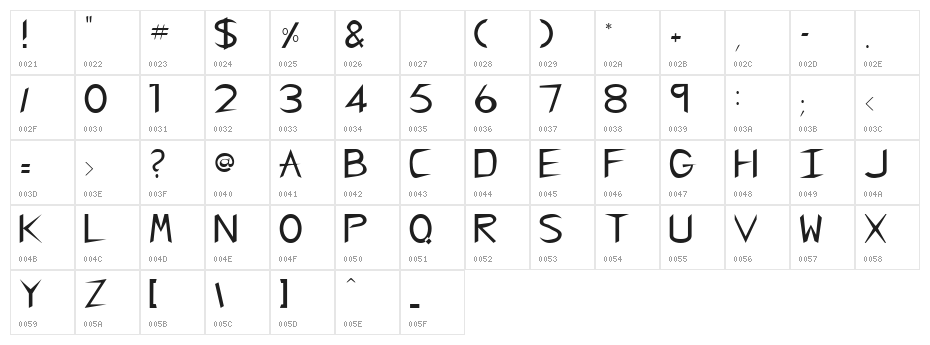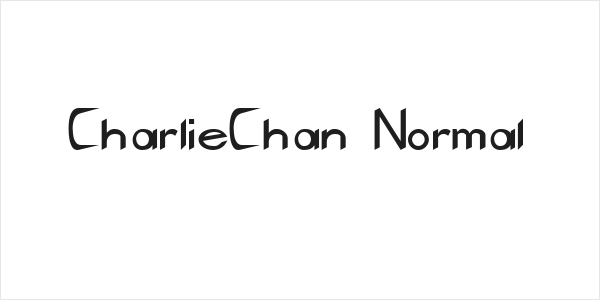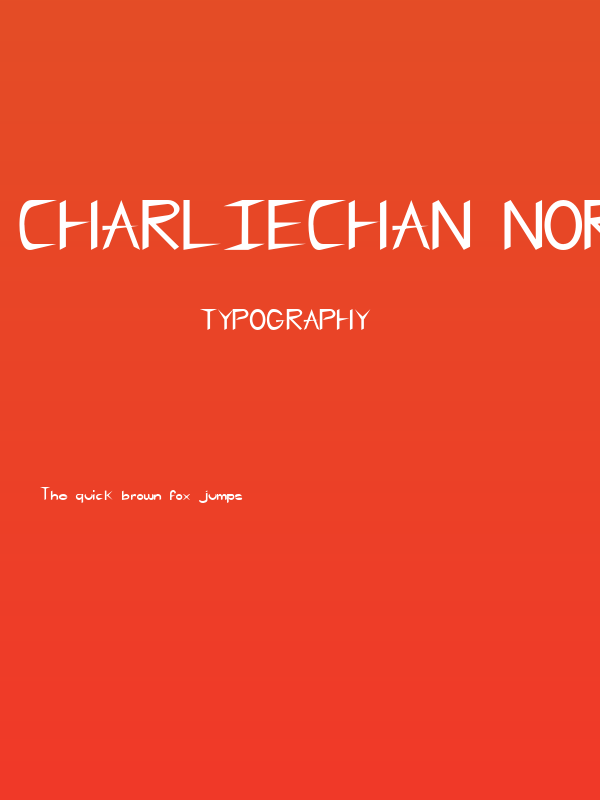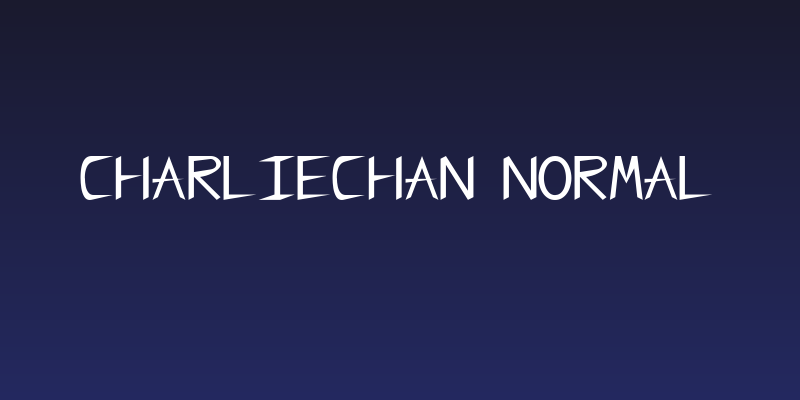
CharlieChan Normal Font
CharlieChan Normal Description
This font features a unique and playful design with a distinctively angular and geometric style. The uppercase letters have sharp, pointed edges, while the lowercase letters maintain a more rounded and smooth appearance. The numerals are bold and consistent with the overall angular theme, providing a cohesive look across all characters. Special characters are creatively designed, adding to the font's quirky and artistic appeal. The font's style is both modern and retro, making it versatile for various creative projects.
| Overall Style | Modern, Retro |
| Proposed Projects | Ideal for posters, logos, branding, and creative design projects that require a unique and eye-catching typeface. |